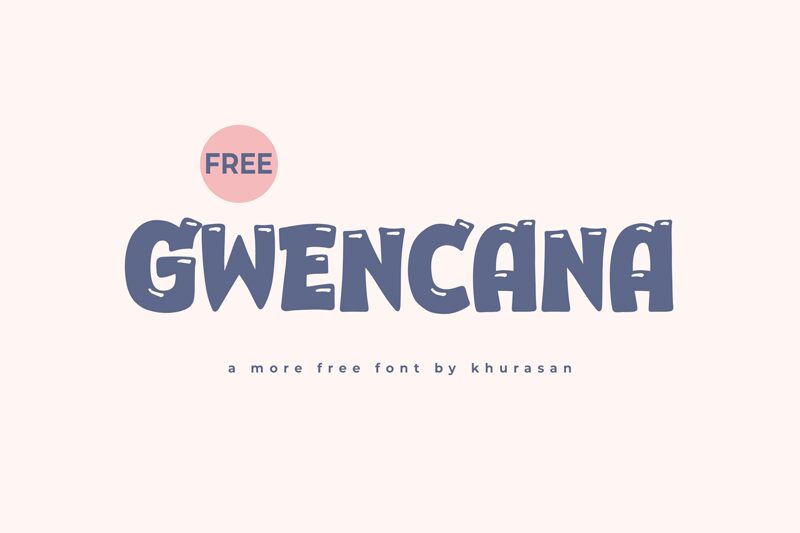
Gwenchana
Gwenchana by Khurasan is a free cartoon caps font with a chunky, hand-drawn bounce and a playful, slightly rubbery feel. The letters look cut from thick ink shapes, with blunt curves, tapered points, and little irregular notches that keep the style lively rather than neat.
It fits poster titles, kids' book covers, comic-style headlines, party invitations, and playful branding where a friendly loud voice matters more than polish. As a free font, Gwenchana also suits short title cards, packaging callouts, and monograms, because the caps have enough wobble and weight to carry a few big letters on their own.